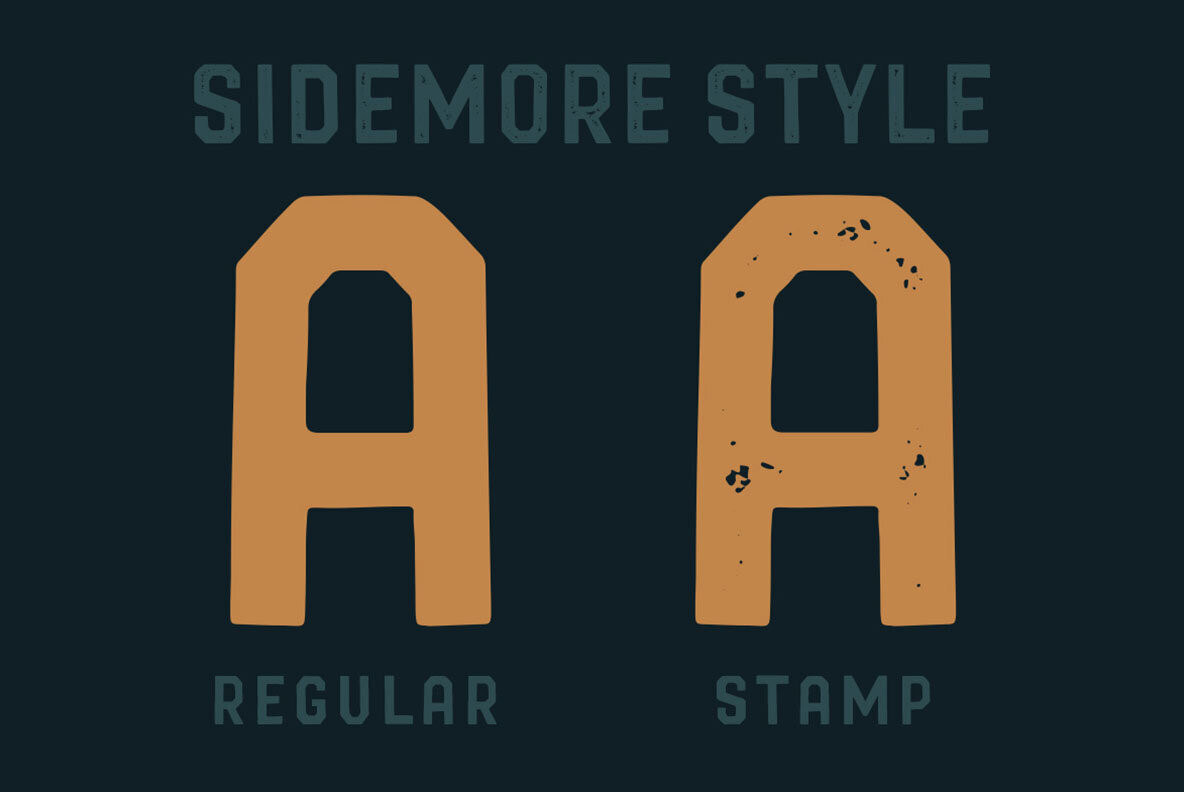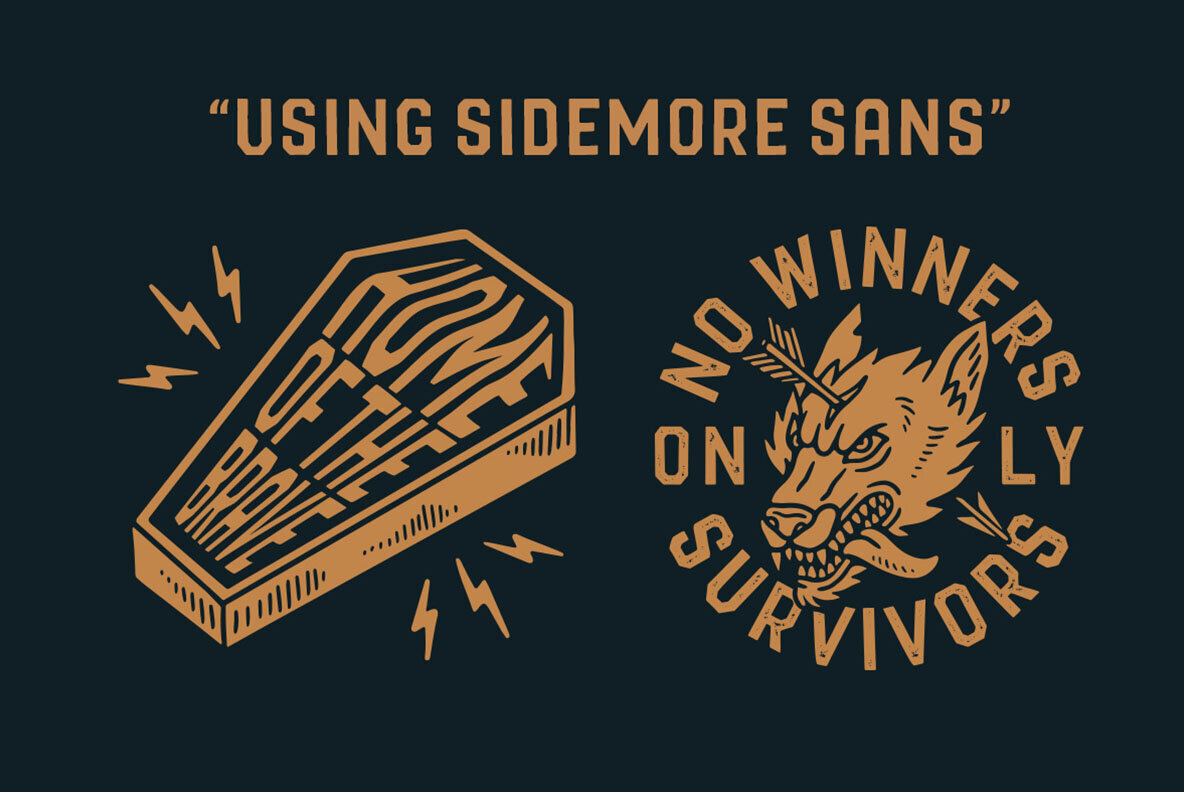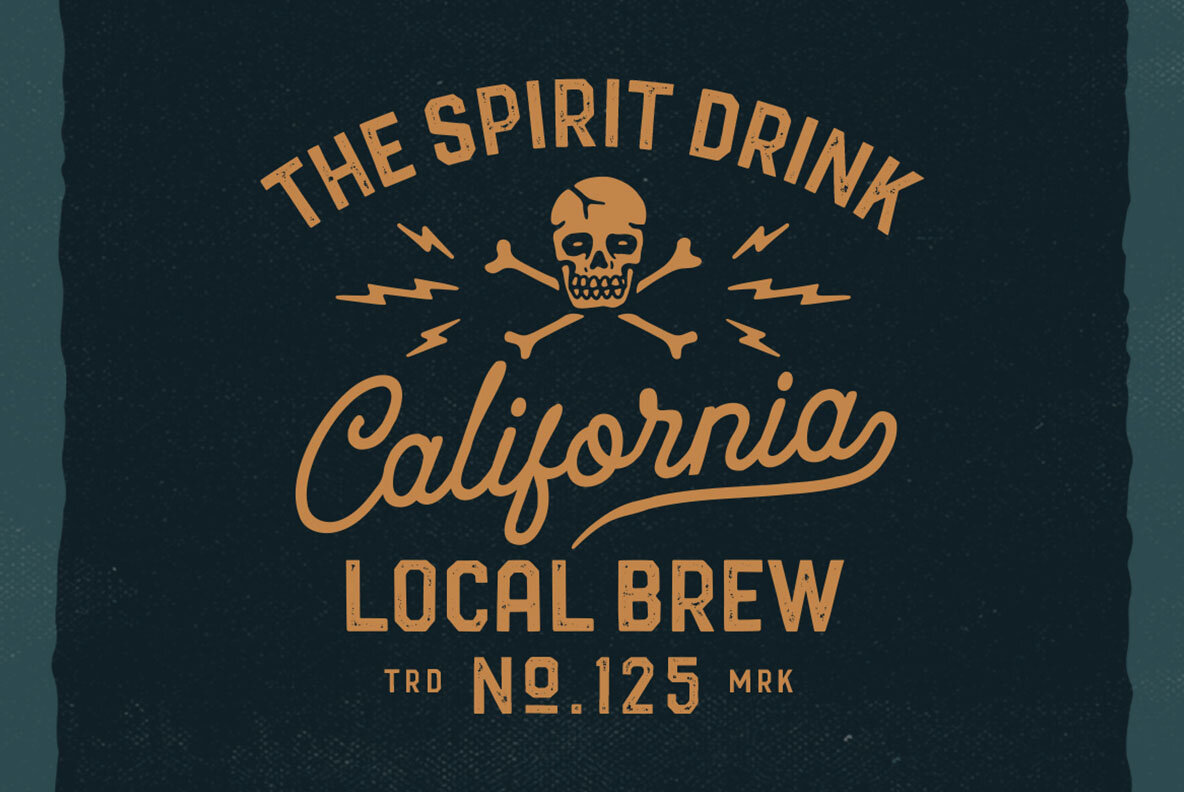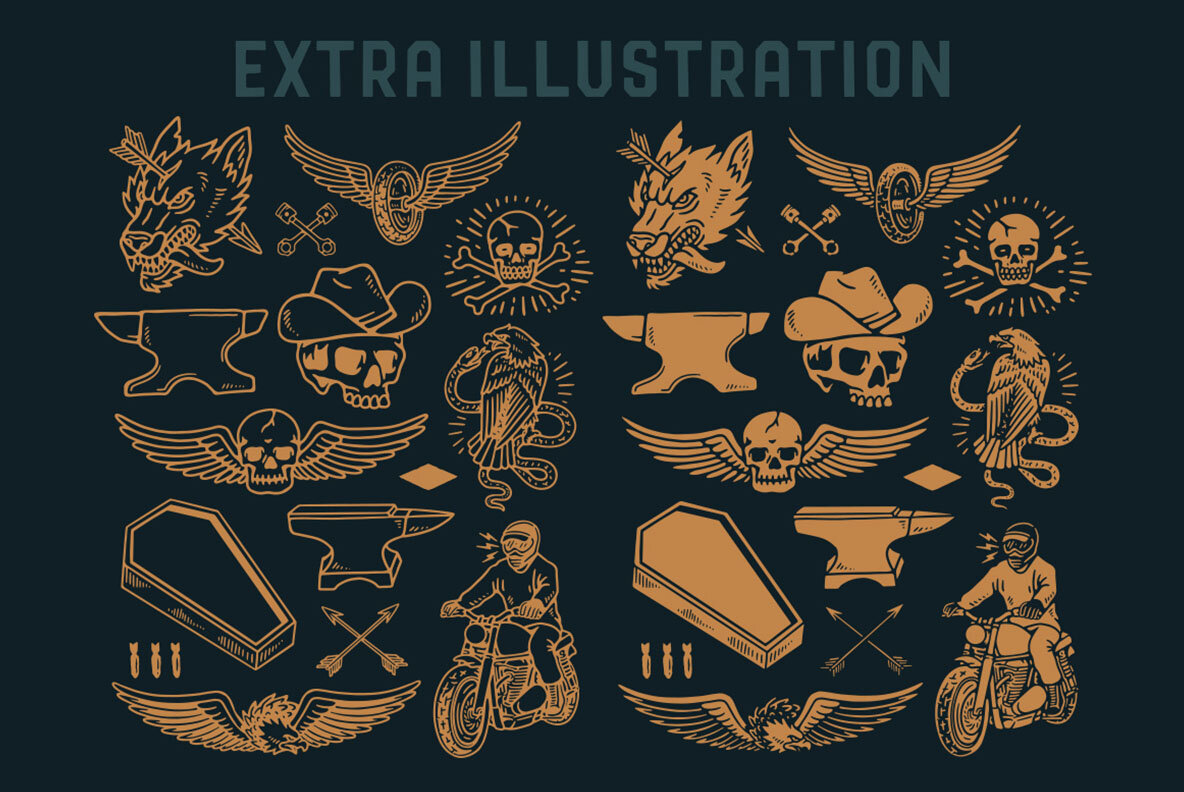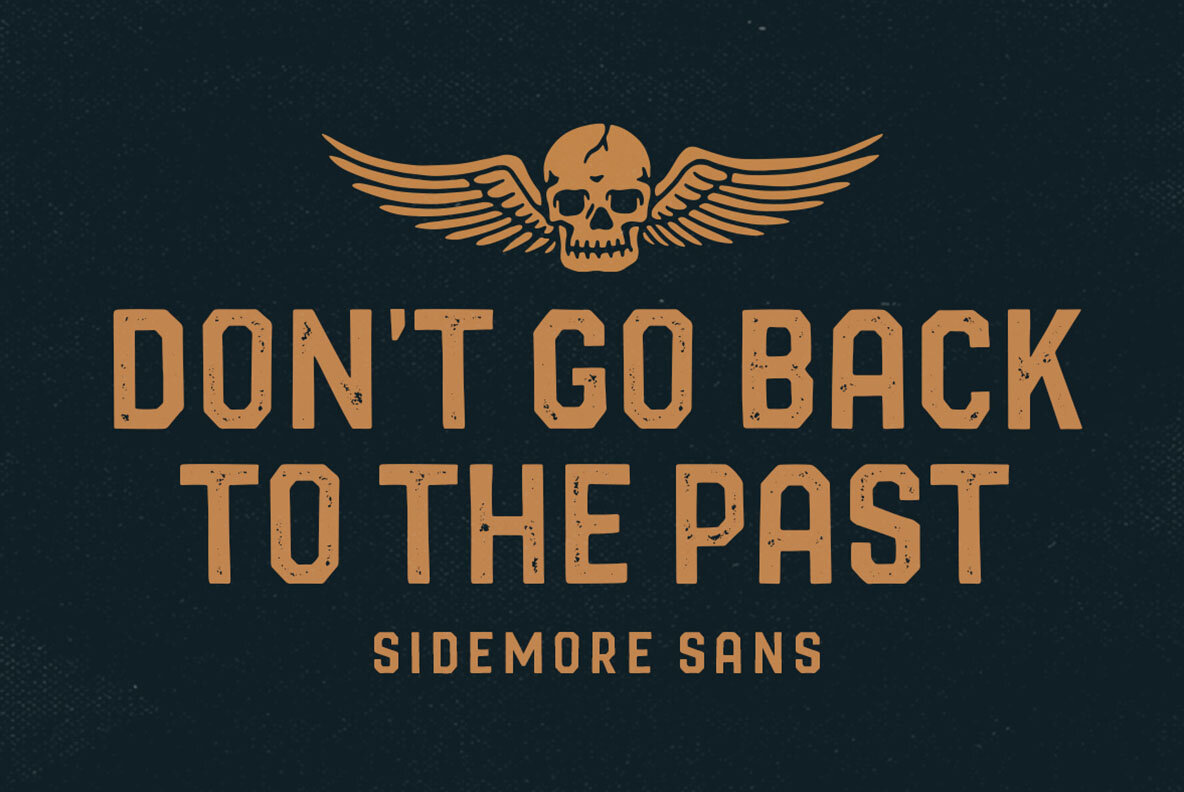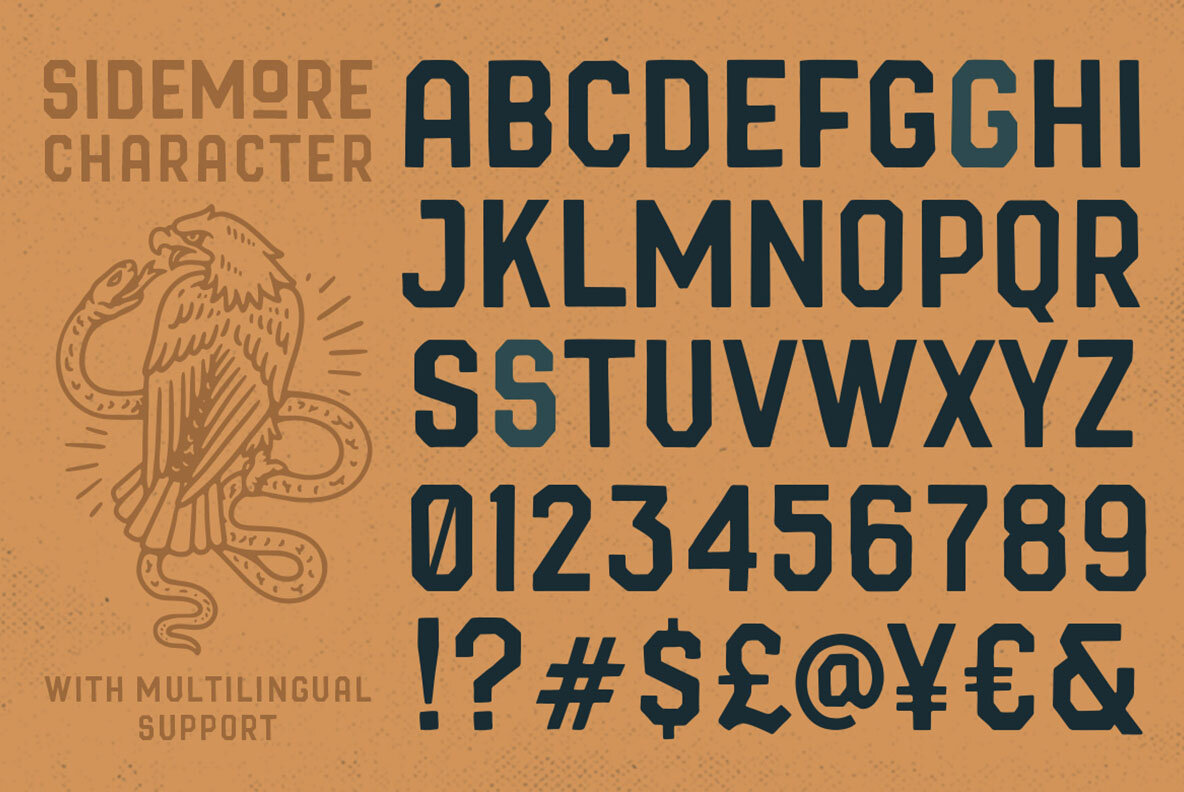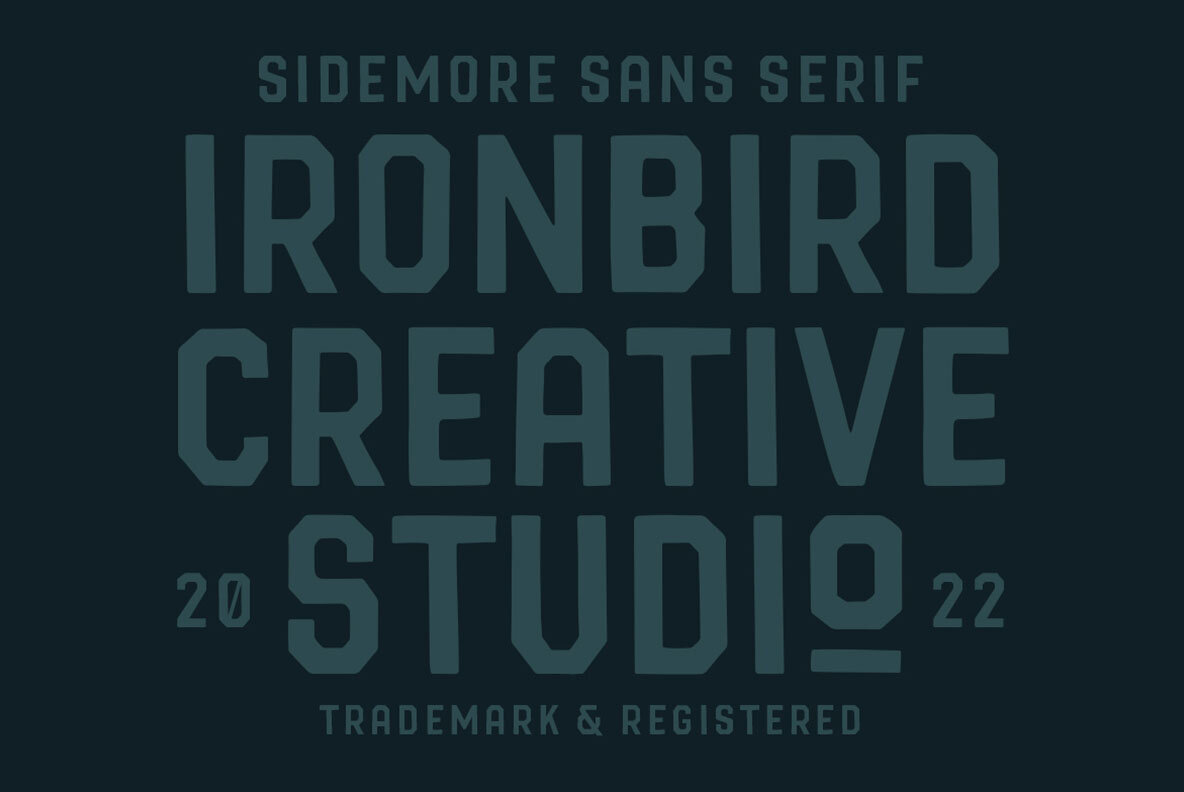
Sidemore Font
Sidemore Regular
Sidemore Stamp
Sidemore captures the essence of vintage typography through its organic sans serif design, inspired by hand-drawn aesthetics. This typeface by Ironbird Creative comes in both regular and stamp versions, complete with extra illustrations, making it ideal for projects seeking a touch of nostalgia. Its appeal extends across a wide array of graphic designs, including branding materials, t-shirts, prints, logos, posters, and quotes. With multilingual support, numbers, symbols, and PUA encoding, Sidemore offers versatility and ease of use to any designer's toolkit.Sidemore: Organic Sans Serif with Vintage Flair